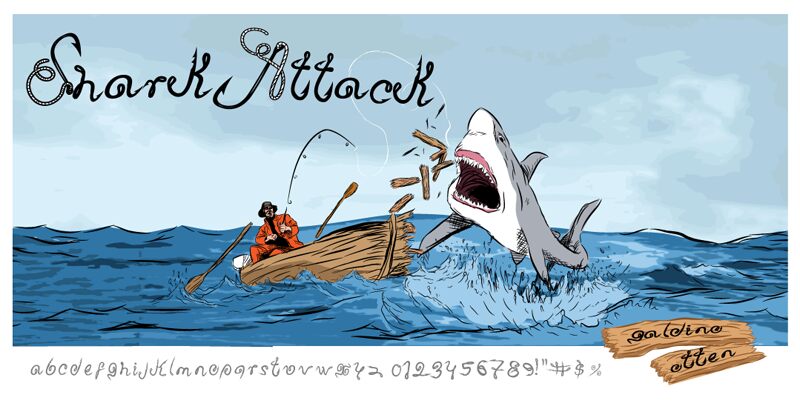
Shark Attack by Galdino Otten is a free decorative display font with a loose, sweeping silhouette. Its letters shift between broad strokes and hairline flicks, with oversized loops, hooked endings, and pointed cuts that make the texture feel fast and slightly unruly.
Young fashion and music audiences suit this restless lettering. It can give event posters, independent clothing labels, and album artwork the raw, immediate look of a large hand-painted graphic mark rather than conventional typesetting. The sharp flourishes can also become part of packaging graphics, helping a streetwear or specialty product line build a strongly recognizable visual identity.